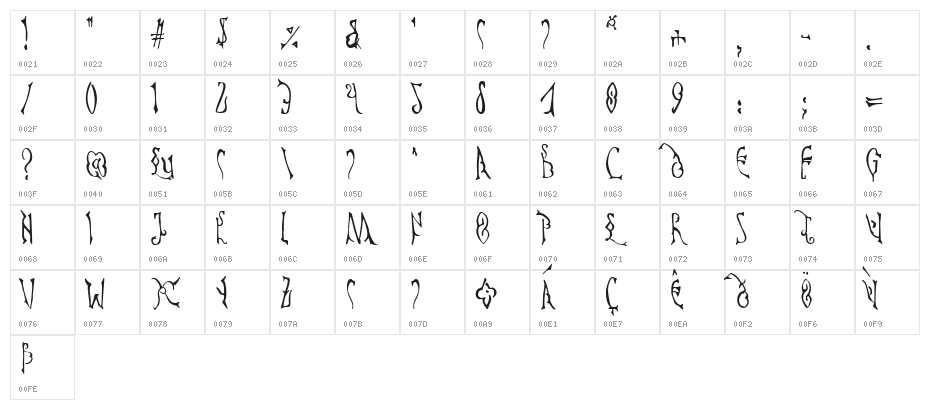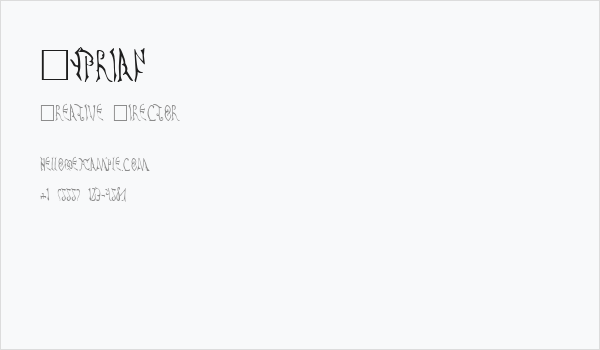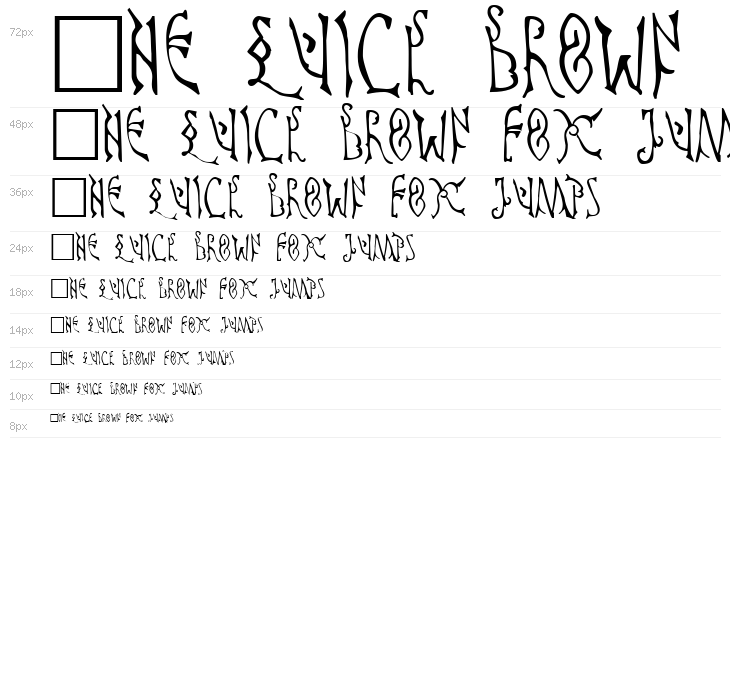
Cyprian Font
Cyprian Description
This font features a highly decorative and artistic style, characterized by its intricate and elaborate letterforms. The uppercase letters have a whimsical, almost calligraphic flair, with exaggerated curves and unique serifs that give each character a distinct personality. The lowercase letters maintain this decorative theme, offering a cohesive look across the alphabet. Numbers and special characters are equally stylized, ensuring a consistent aesthetic throughout. The font's overall appearance is both playful and sophisticated, making it suitable for creative and expressive design projects.
| Use Case | Headlines, Artistic projects, Invitations |
| Proposed Projects | Ideal for invitations, posters, artistic branding, and any project requiring a creative and expressive touch. |